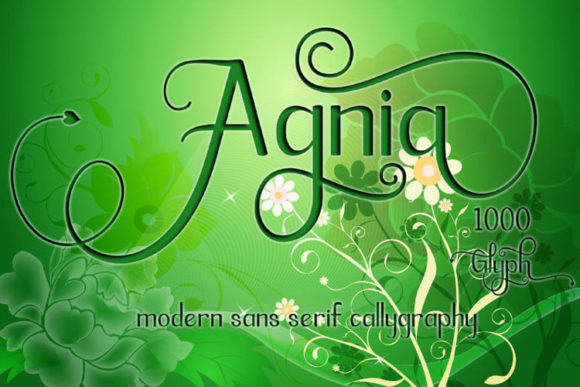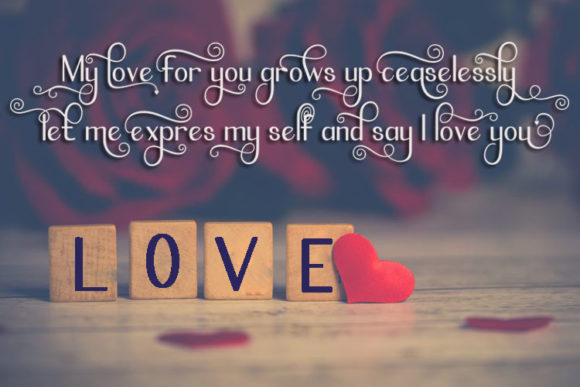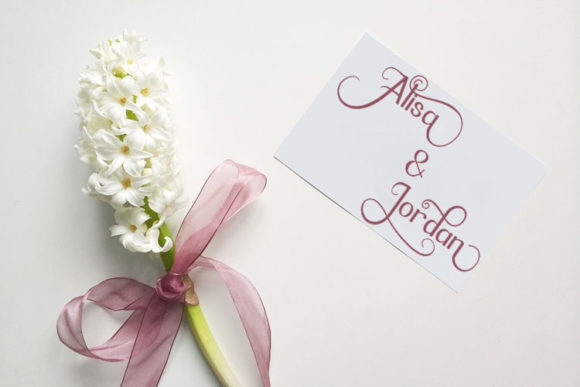
Agnia Font
About Agnia Font
The Agnia is an elegant calligraphy font. It’s beautiful swashes will add a feminine touch to your designs.
It’s perfect for greeting cards, branding material, business cards, quotes, posters, and more!